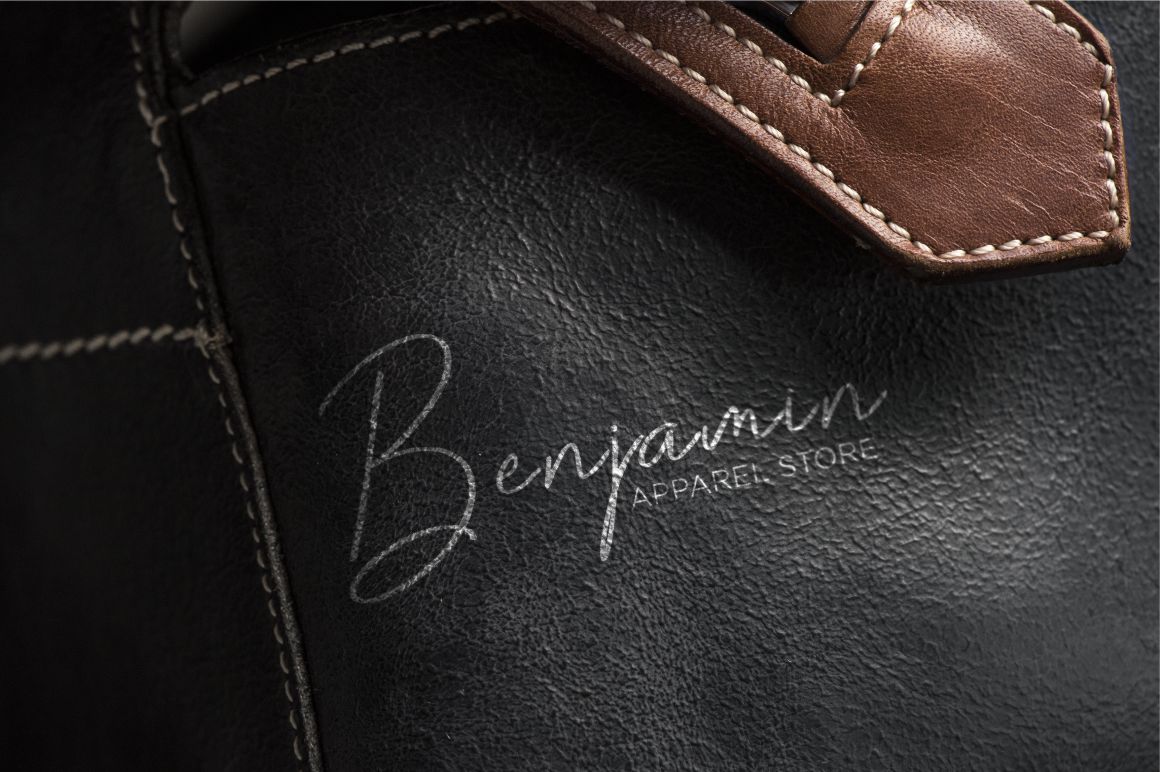
Darcey Oliver is a signature font, perfect for adding some romance and charm to your designs. This script functions most strongly as a display or headline font. suitable for logo, logotype, branding,wedding, fashion, label, book cover, t-shirt, instagram post, and other
- Basic Latin A-Z and a-z
- Numbers
- Symbols
- Ligature
- Swash